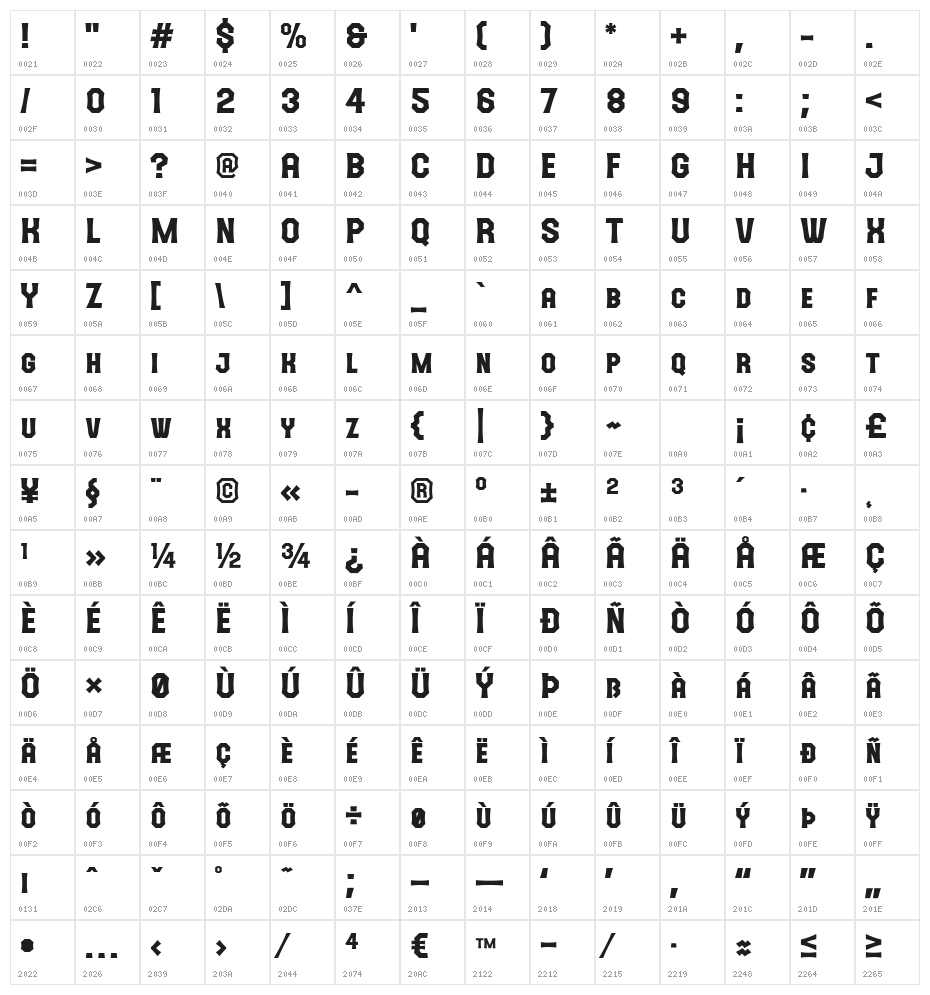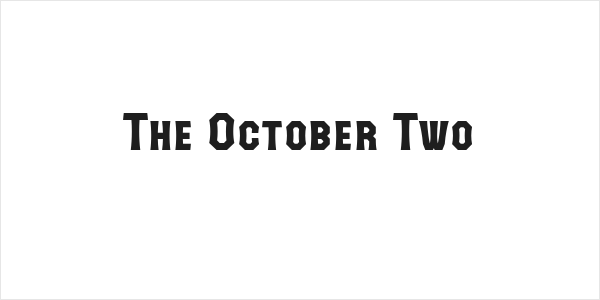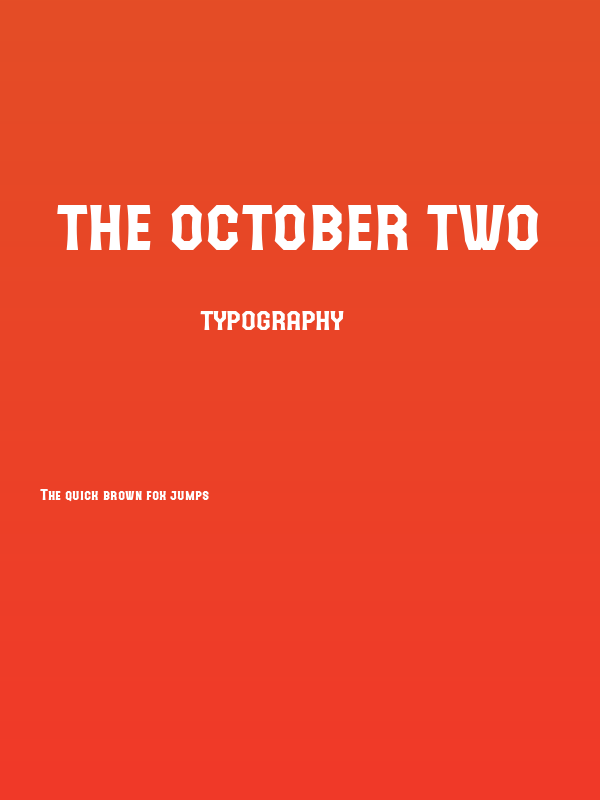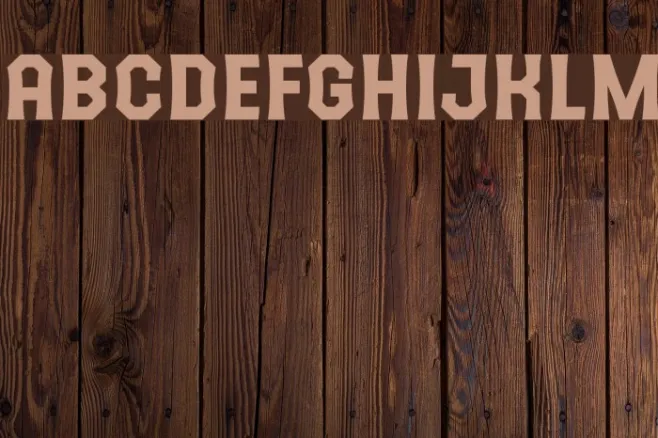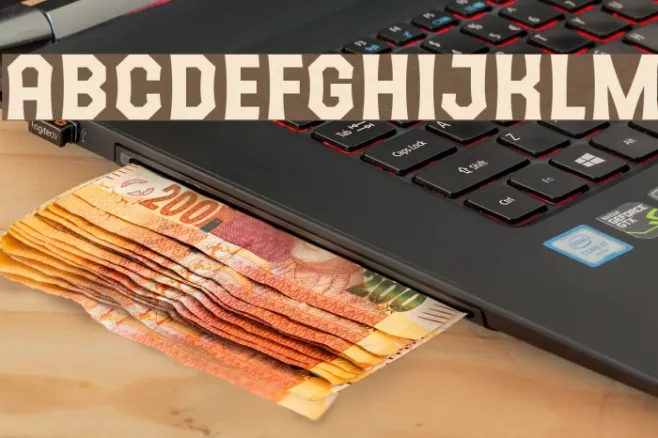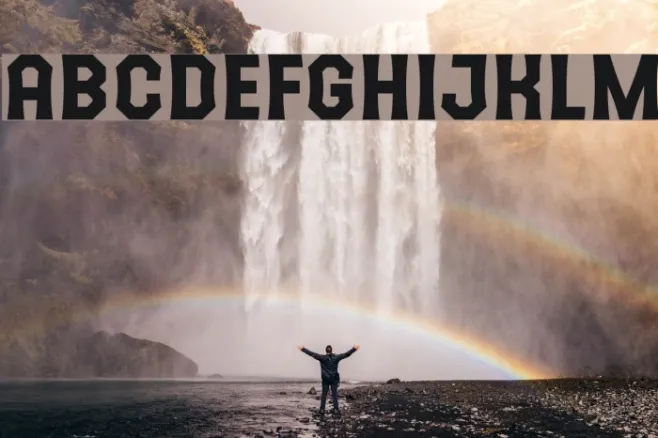
The October Two Font
The October Two Description
This font features a bold, geometric style with a strong presence. The characters are constructed with sharp angles and a blocky appearance, giving it a modern and assertive look. The uppercase and lowercase letters maintain a consistent weight, contributing to a uniform and cohesive design. The numbers and special characters follow the same bold and angular aesthetic, ensuring a seamless integration across different uses. The font's distinct style makes it ideal for projects that require a strong visual impact.
| Proposed Projects | Ideal for posters, headlines, branding, and any design needing a strong, impactful typeface. |